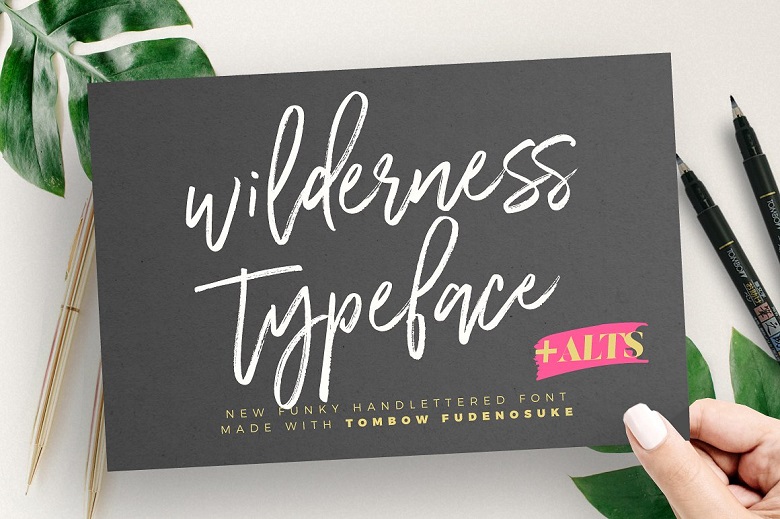
Wilderness Typeface Font
Wilderness Typeface is a new funky hand lettered font, created with Tombow Fudesunoke brush pen. It’s an authentically handlettered font with lowercase alternates. I have created it to fit and blend well in many designs such as wedding invitations, website logos, Instagram posts among others.
Wilderness Typeface Handwritten Font